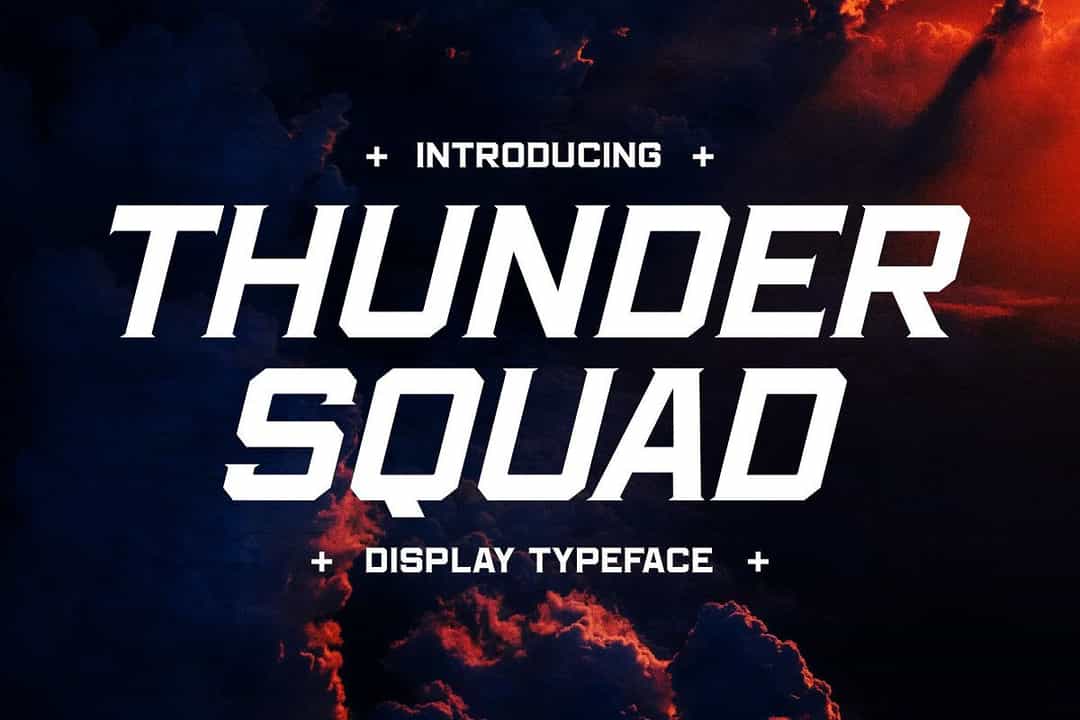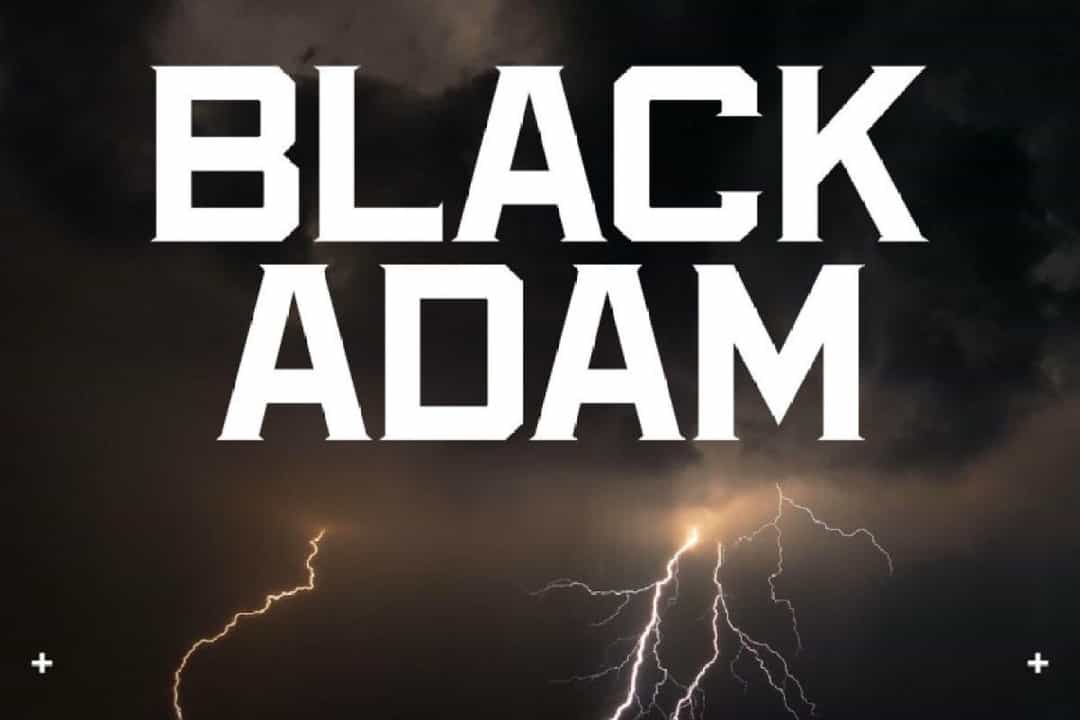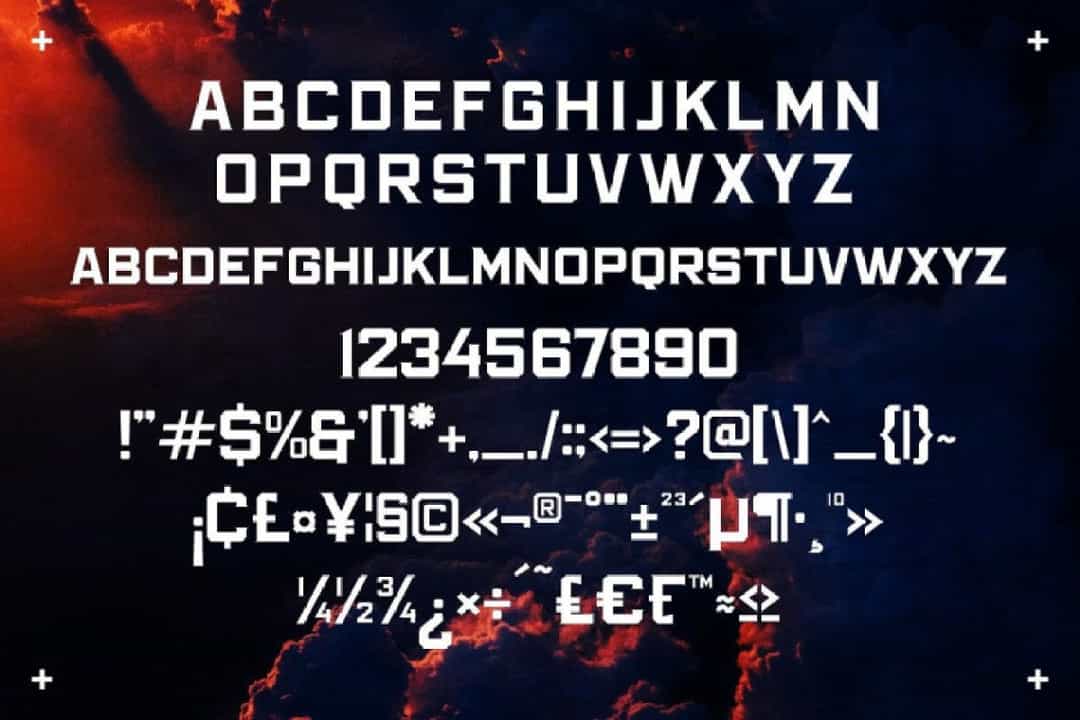
Thunder Squad Font
Thunder Squad Typeface was developed by Storytype as a modern serif and traditional display typeface with its distinct style and modern appearance, ideal for sophisticated logo designs, movie/book name design, fashion label clothing design, magazines lettering or quotes among many other applications.